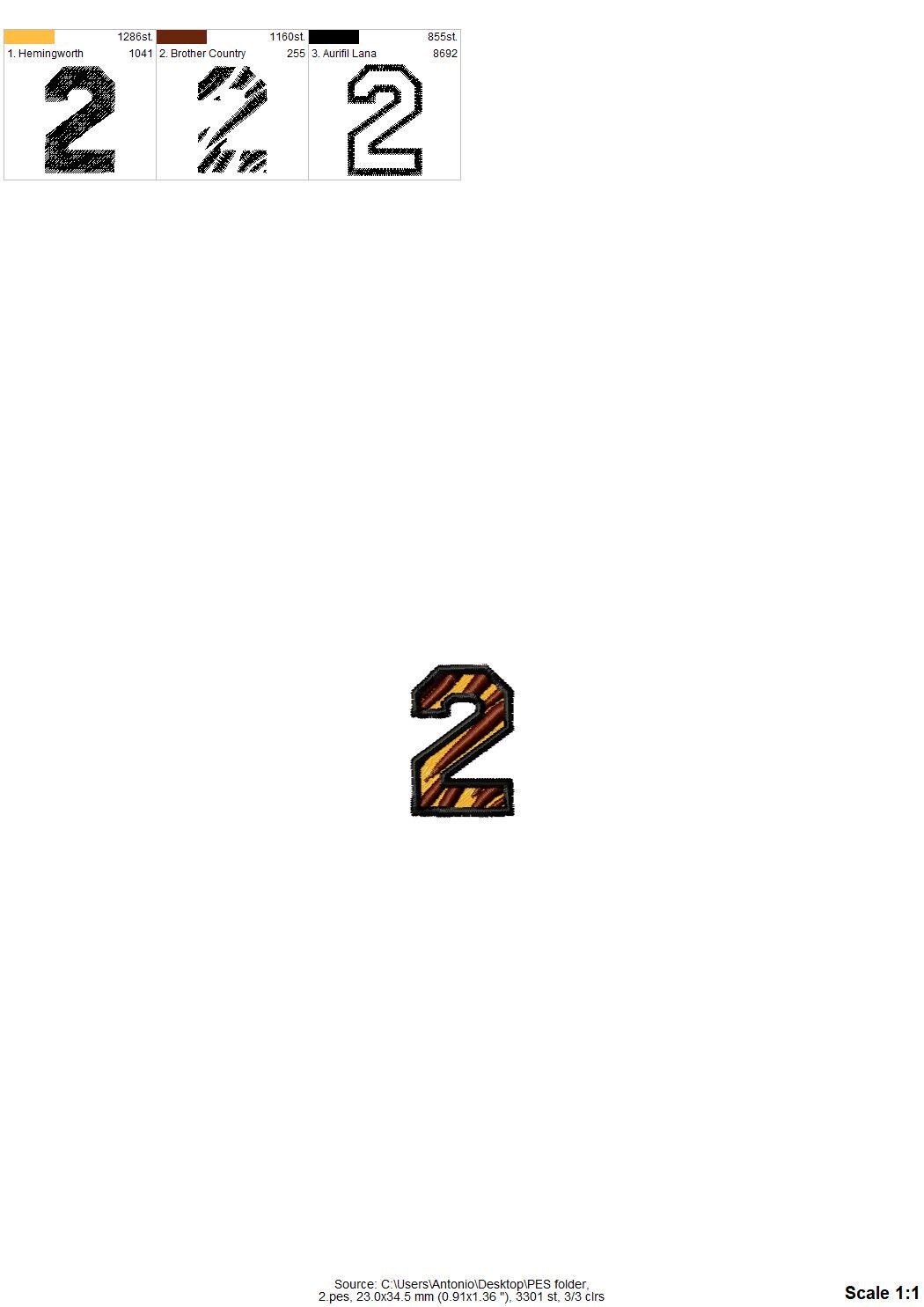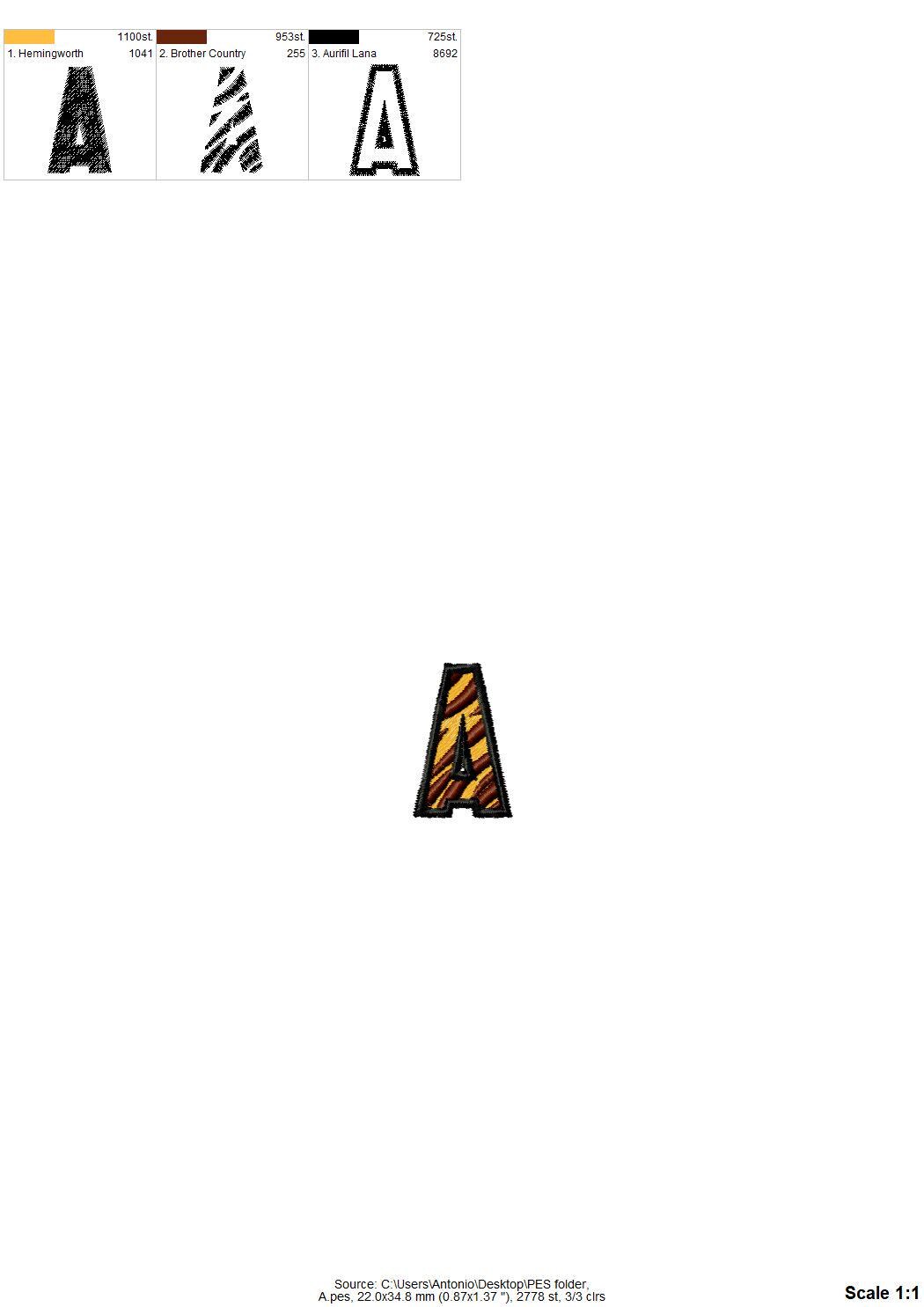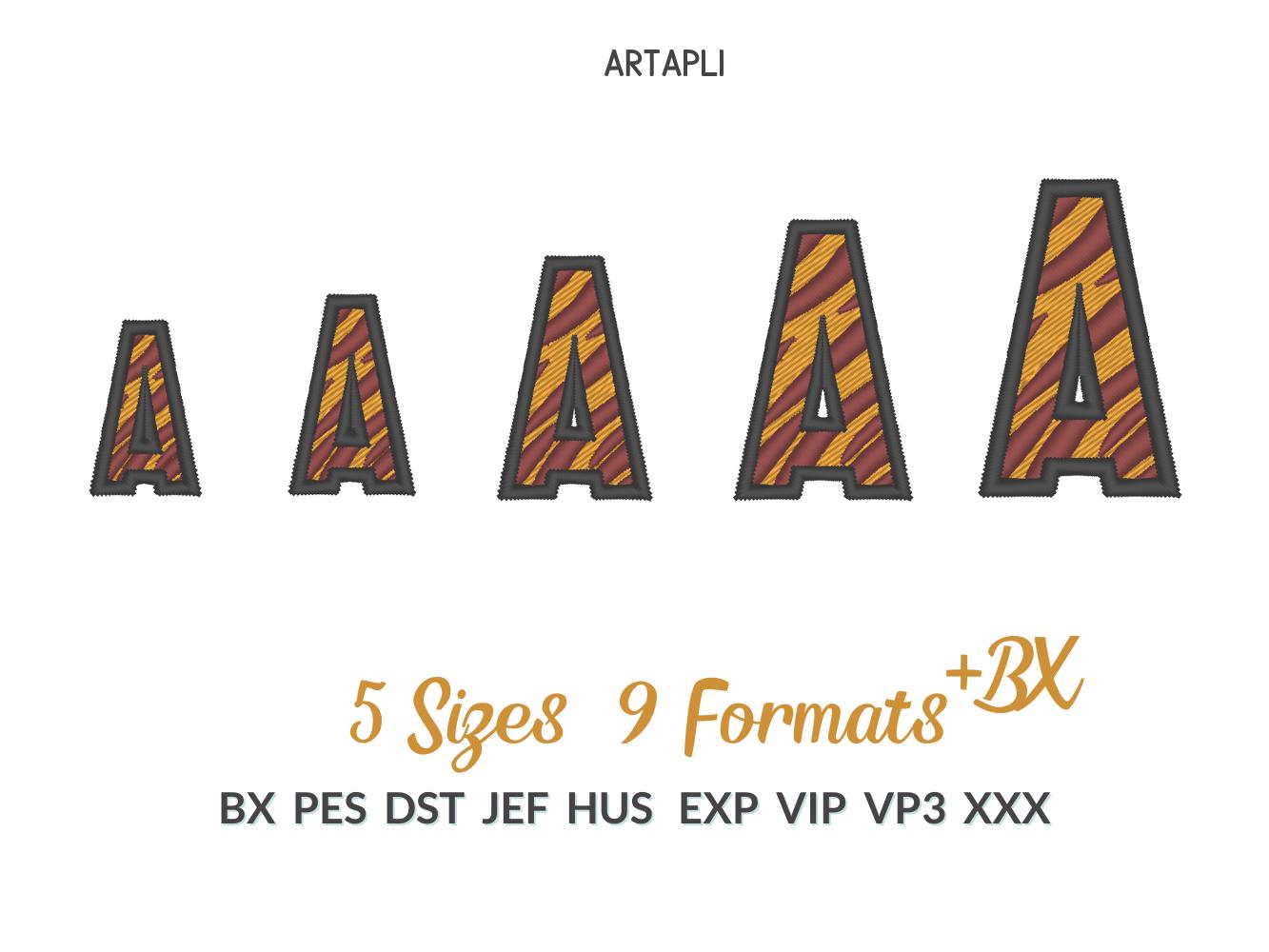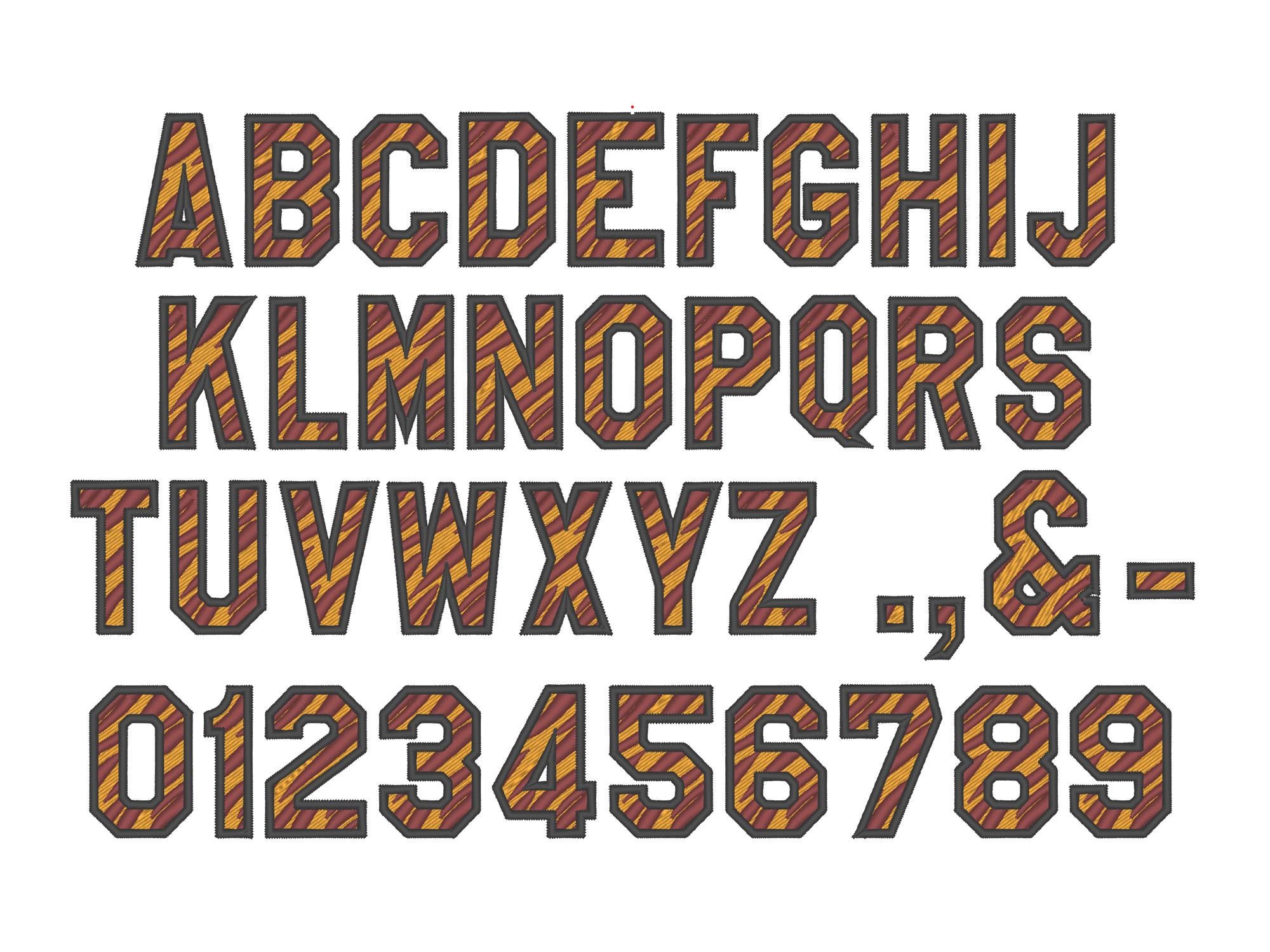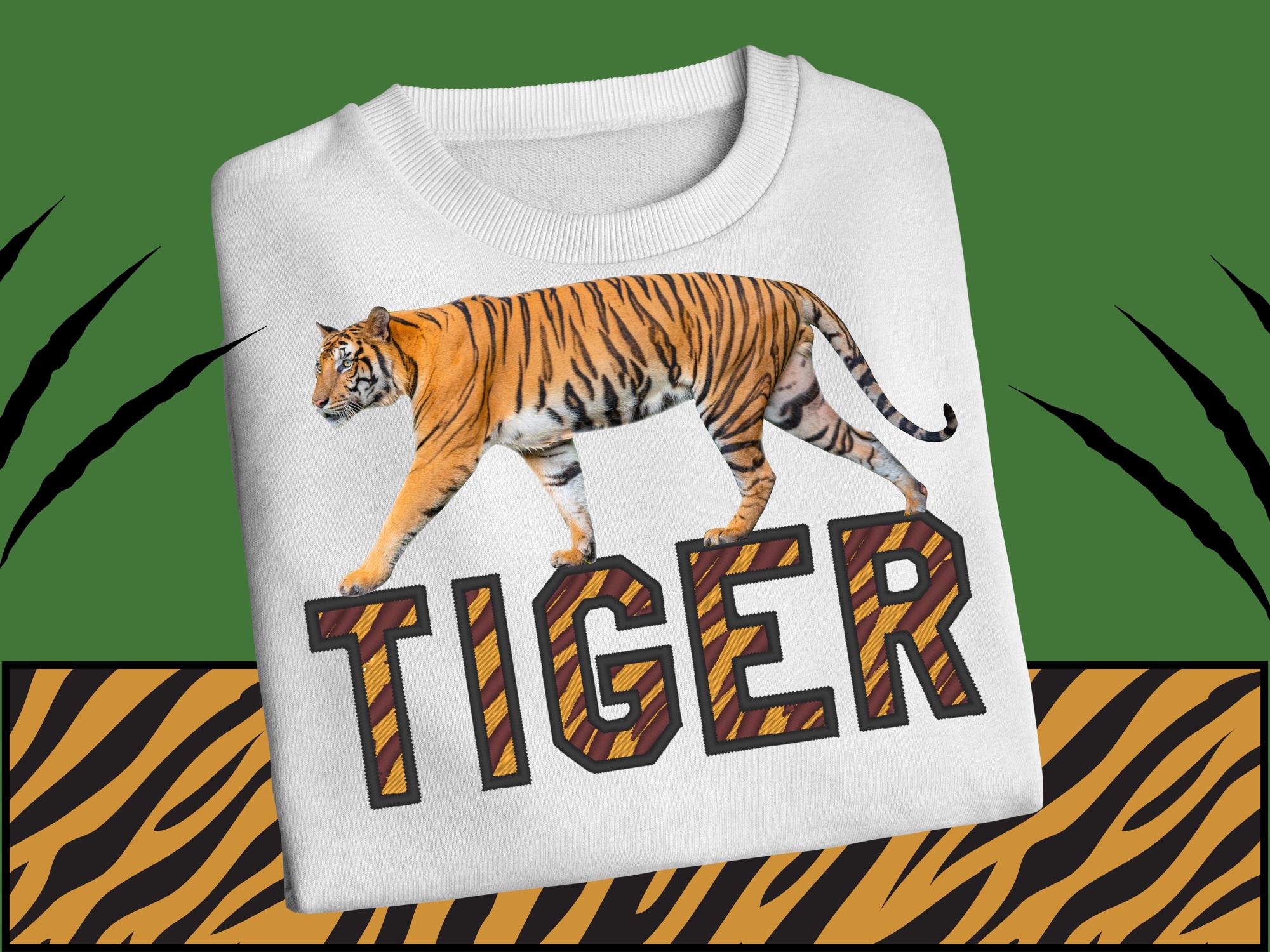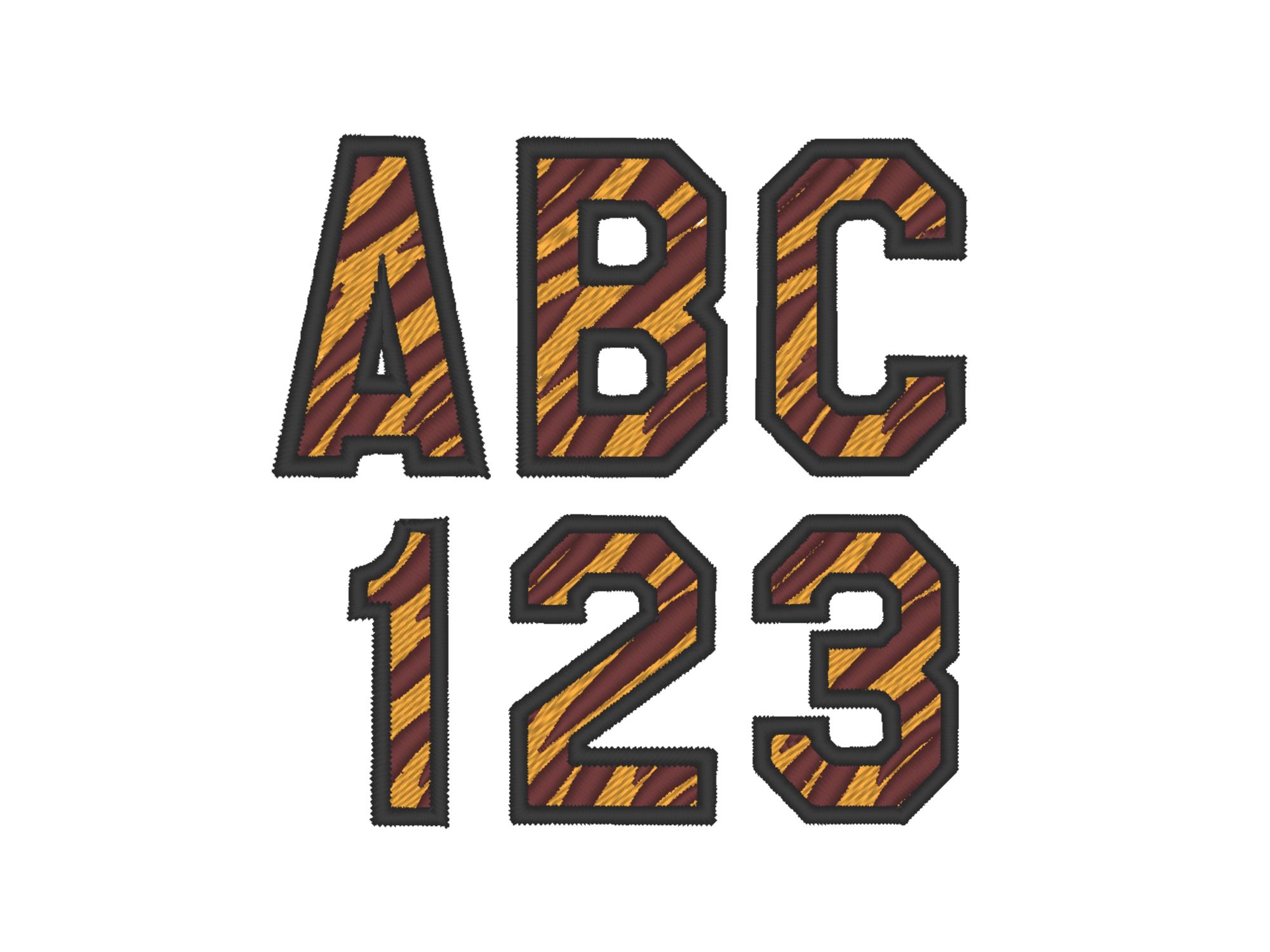
Tiger print embroidery Font MINI sizes machine embroidery designs Tiger Stripes Varsity fill stitch Sport alphabet sizes 1 up to 1.8 inch and BX included
This is a fill stitch design with 3 colors: a main color, stripes, and an outline.
Entire alphabet: uppercase A-Z and numbers 0-9, and punctuation.